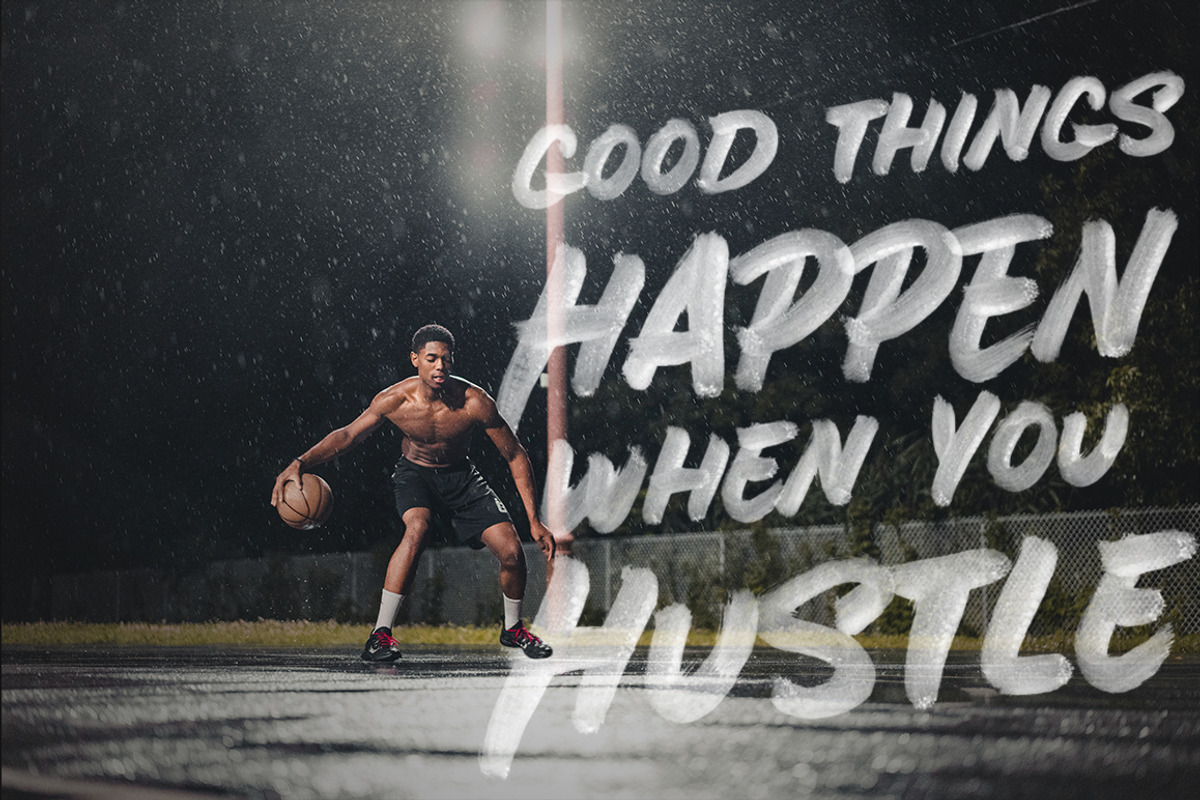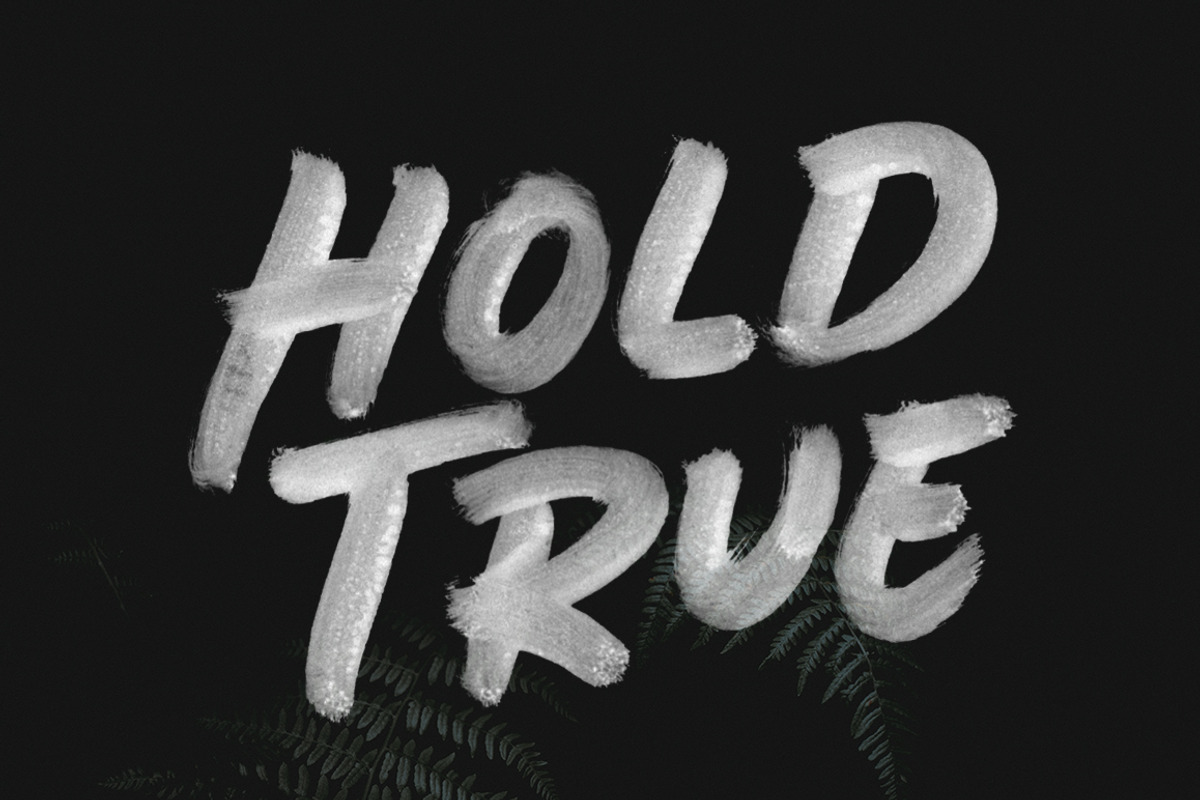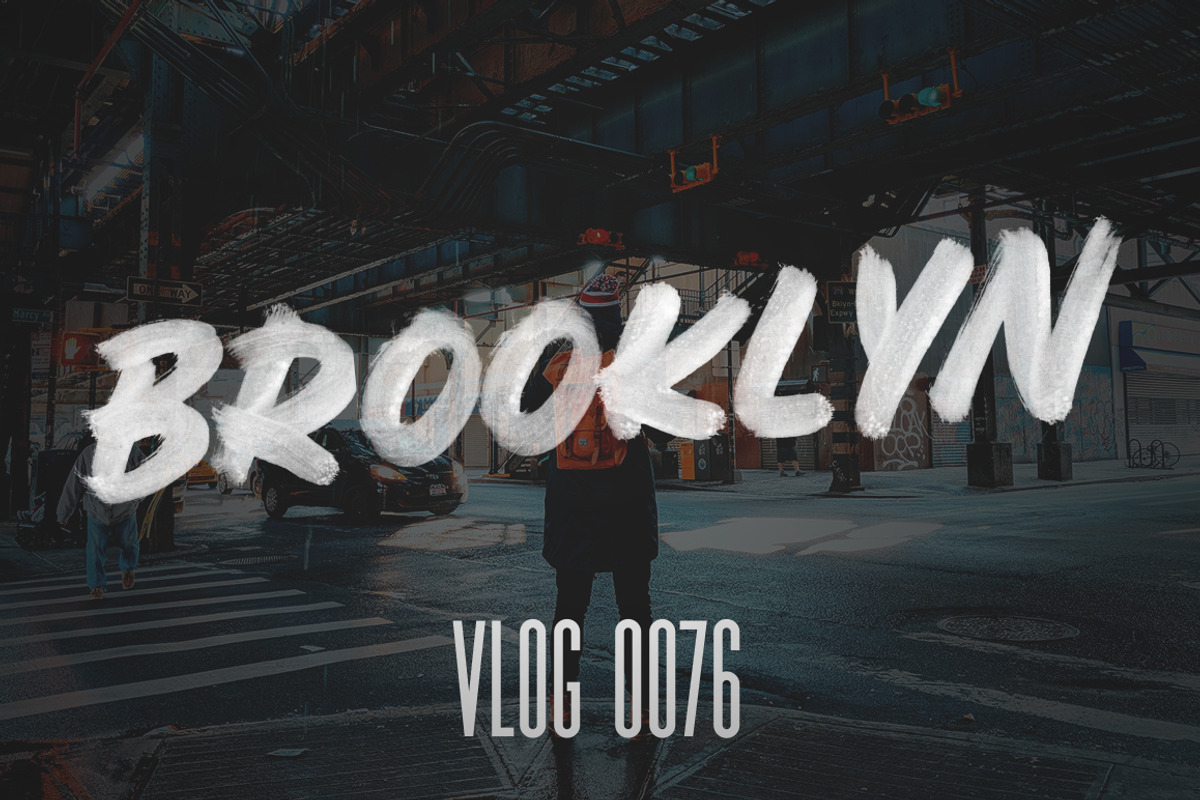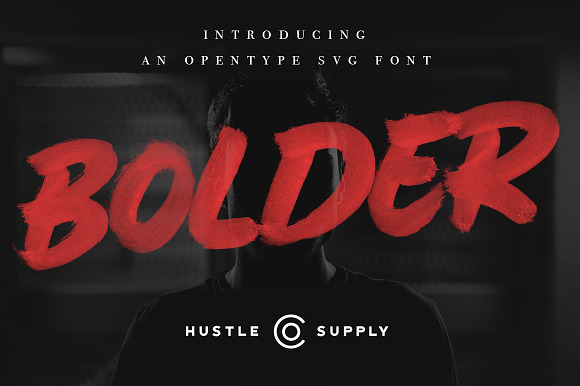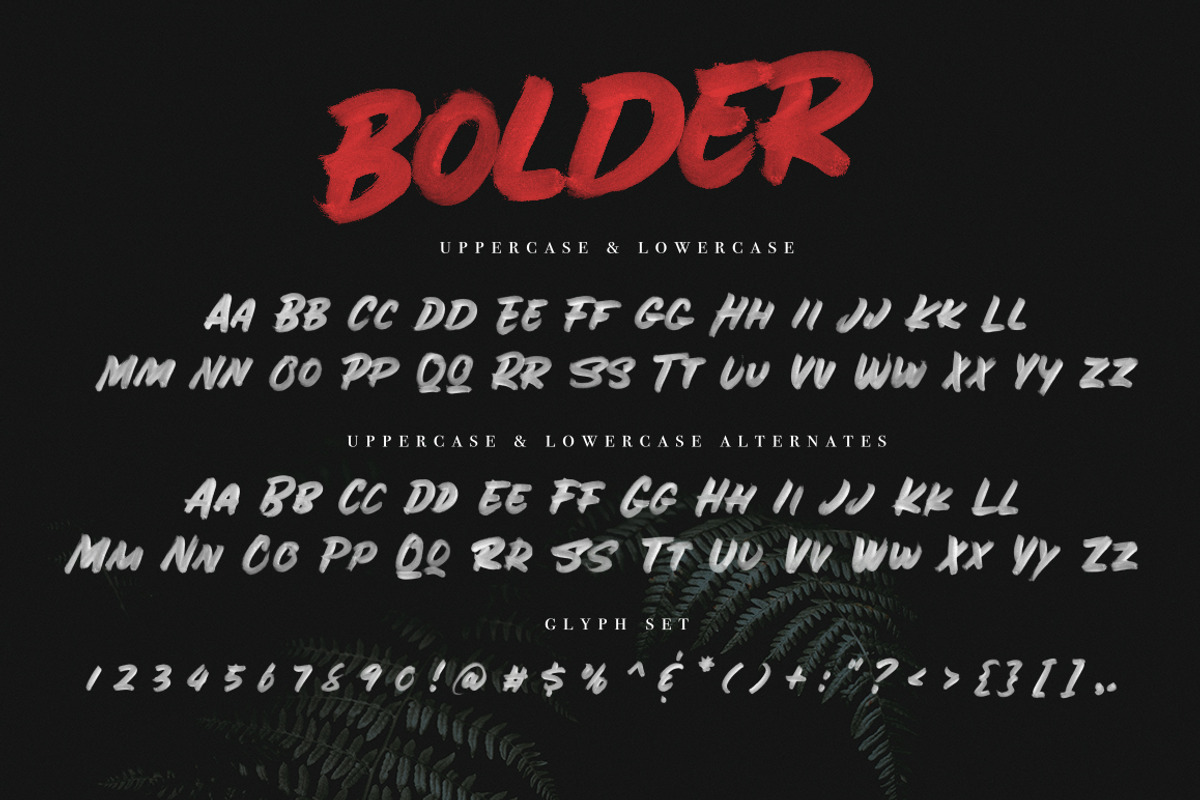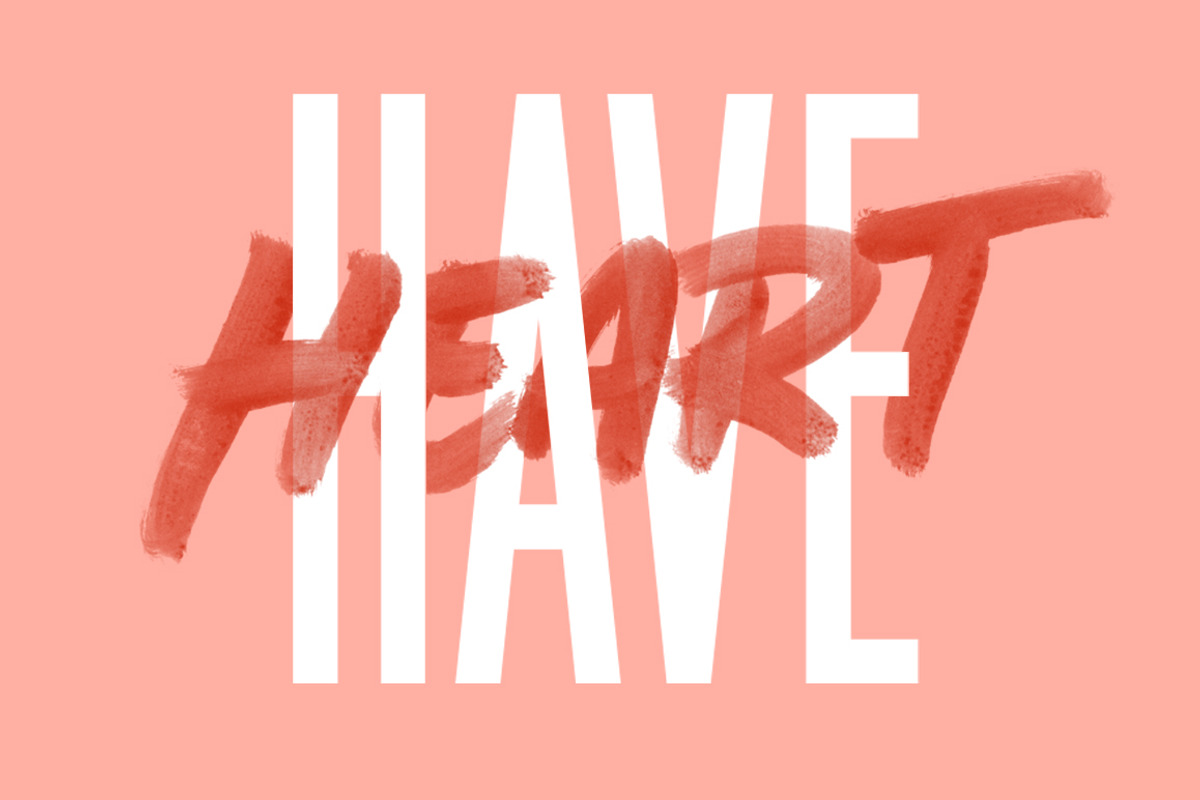
BOLDER - Smallcaps SVG Brush Font
Be at the forefront of the newest font technology. You love handmade fonts & now with new SVG font technology, software is finally allowing you to own truly realistic typefaces. Bolder is a realistic Brush/Marker typeface using Opentype SVG to give you realism at your fingertips. Typing out an SVG typeface to reveal a hyper realistic handmade typeface is extremely satisfying - you'll be hooked!